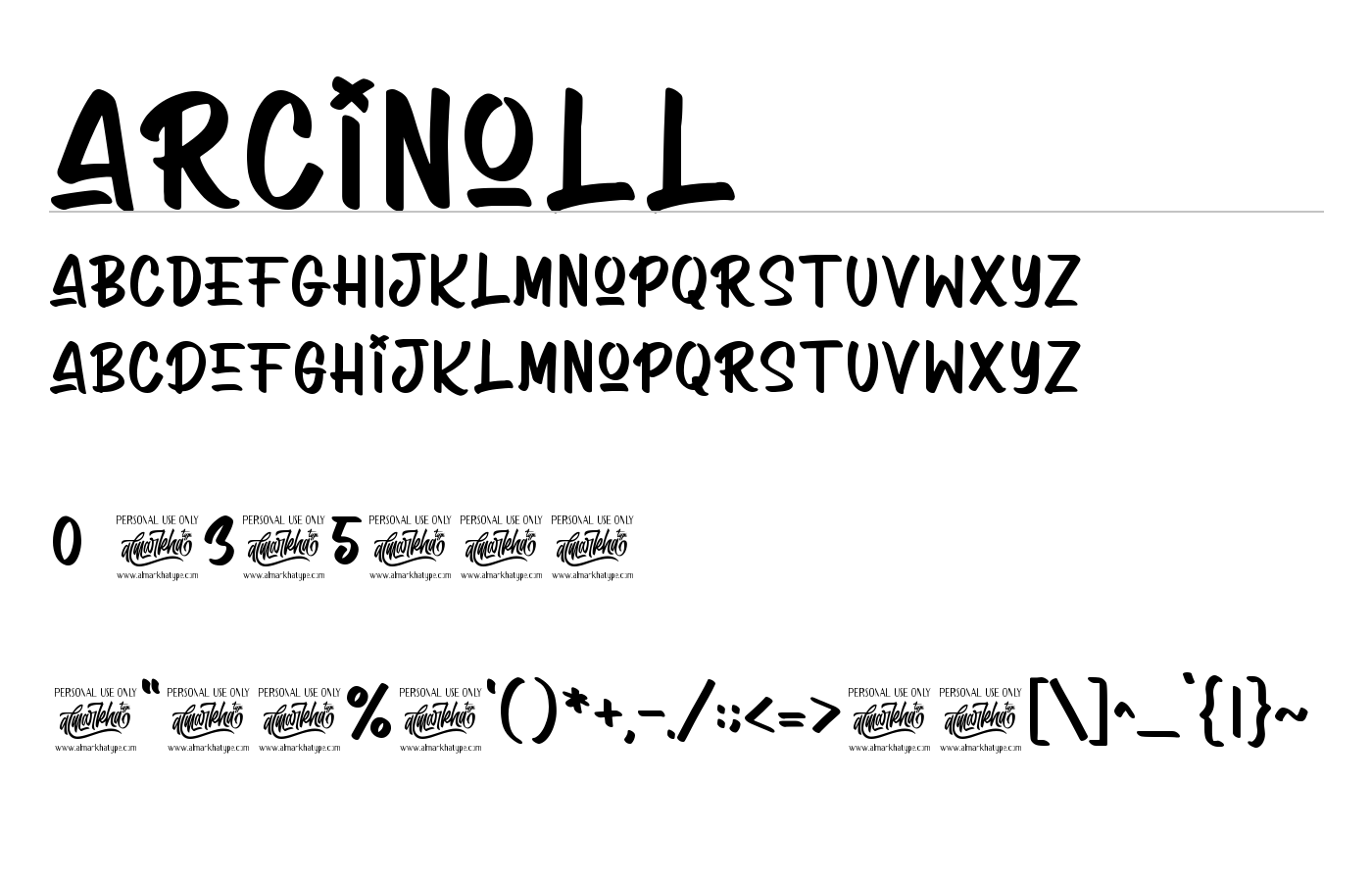
Arcinoll is a playful and casual handwritten sans serif font with a bold weight and lively, uneven strokes that give it a fun, informal personality. Its tall, narrow letterforms and quirky details, like crossed tittle dots and underlines, make it ideal for creative logos, posters, and youth-focused branding where a friendly, approachable vibe is desired. This font works best for headlines and display use, adding a spontaneous, hand-crafted touch that stands out in modern, energetic designs.
Arcinoll Font
About Arcinoll Font
| Font family | Arcinoll Font |
| Designer | Almarkhatype Studio 2021 - Abdul Malik - Ghazi |